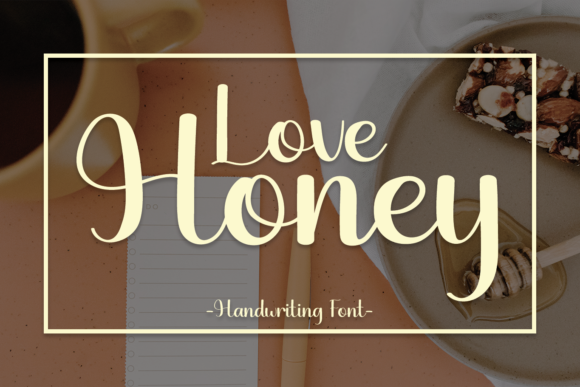
Prepare to be mesmerized by Love Honey Font, a captivating script font family that will transform your digital creations into masterpieces. This exquisite font was lovingly crafted by the talented fana merah jambu, specifically designed to add a touch of charm and sophistication to your designs.
Step into a world of enchantment with Love Honey Font, where every letter dances across your screen with delicate grace and undeniable allure. Its flowing curves and subtle flourishes evoke a sense of timeless elegance, perfect for crafting heartfelt messages, stunning invitations, and designs that evoke a touch of nostalgia.
Immerse yourself in the versatility of Love Honey Font, a font family that adapts effortlessly to a myriad of design styles. Whether you seek to create enchanting wedding invitations, heartfelt greeting cards, or alluring social media posts, Love Honey Font possesses the charm to elevate your creations.
Experience the joy of using Love Honey Font and watch as your designs blossom into works of art. Its enchanting aura will captivate your audience, leaving an unforgettable impression that lingers long after the page is turned. Embrace the beauty of Love Honey Font and let your creativity soar to new heights.